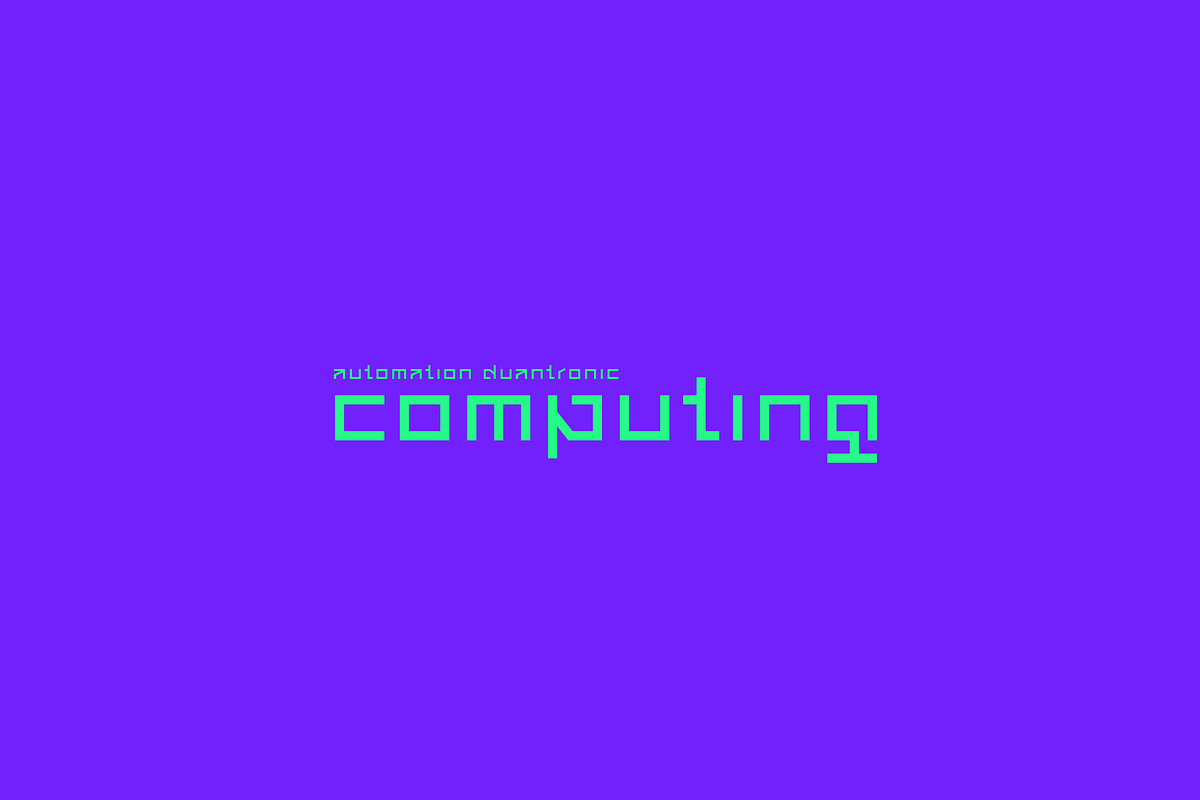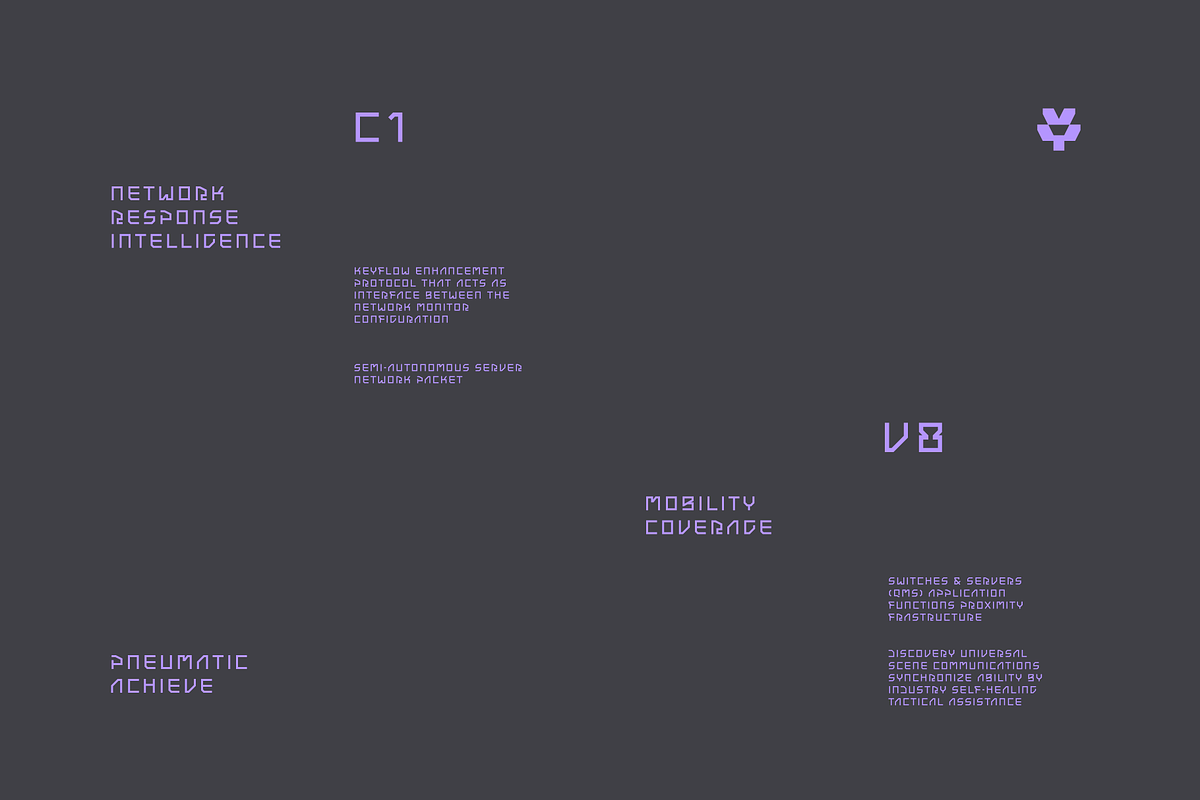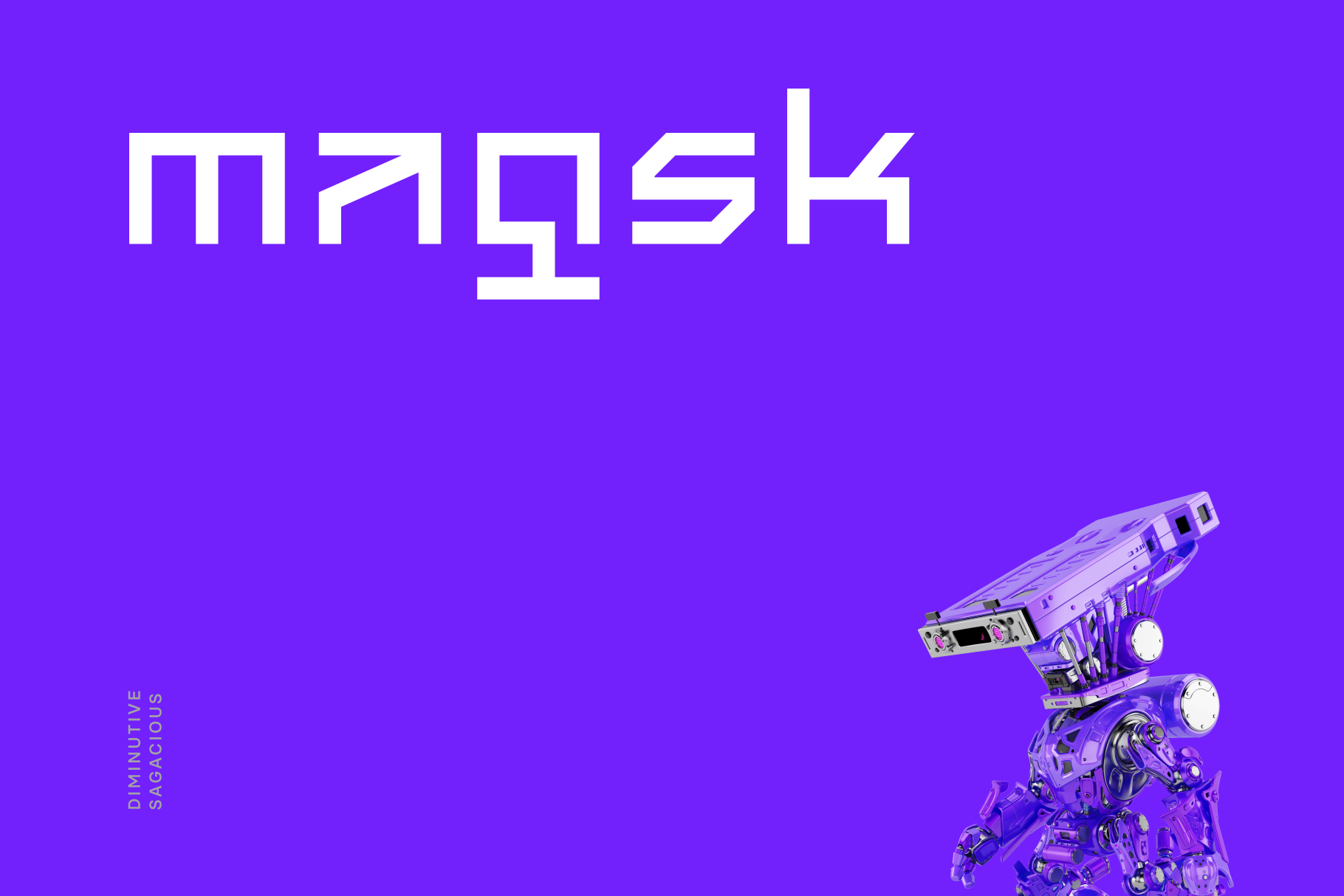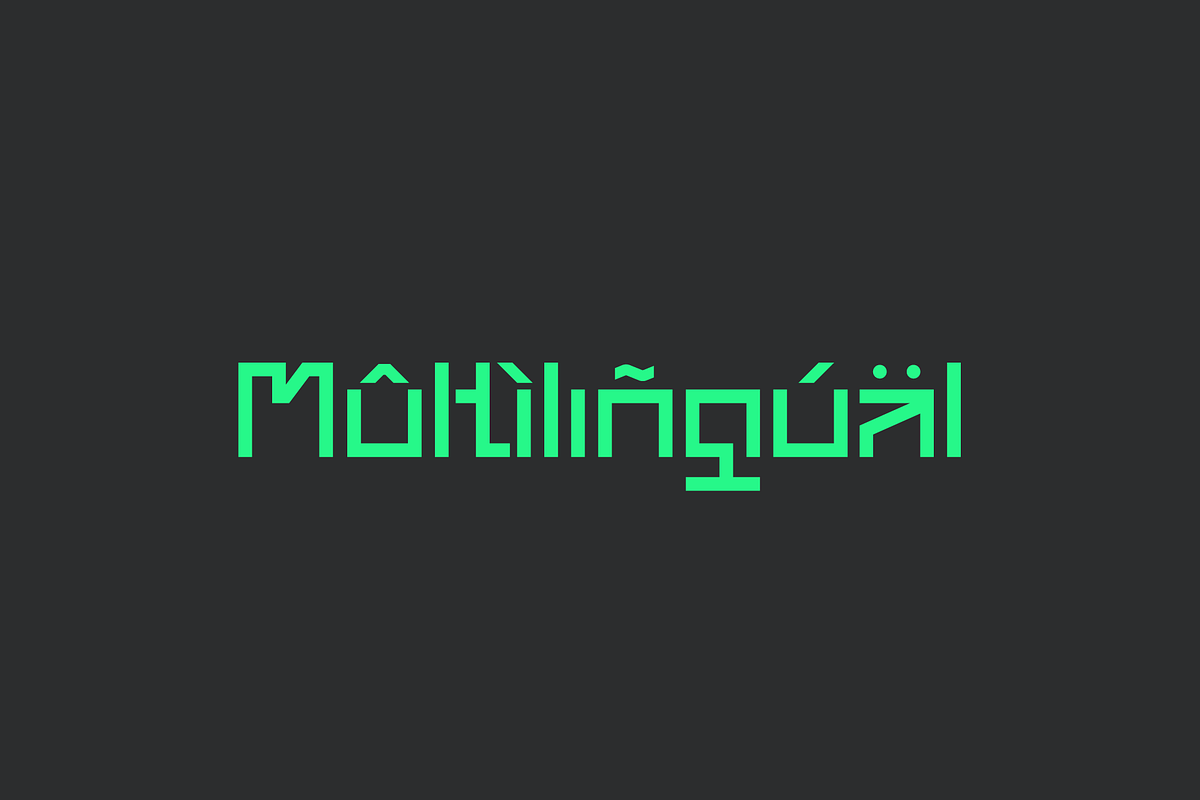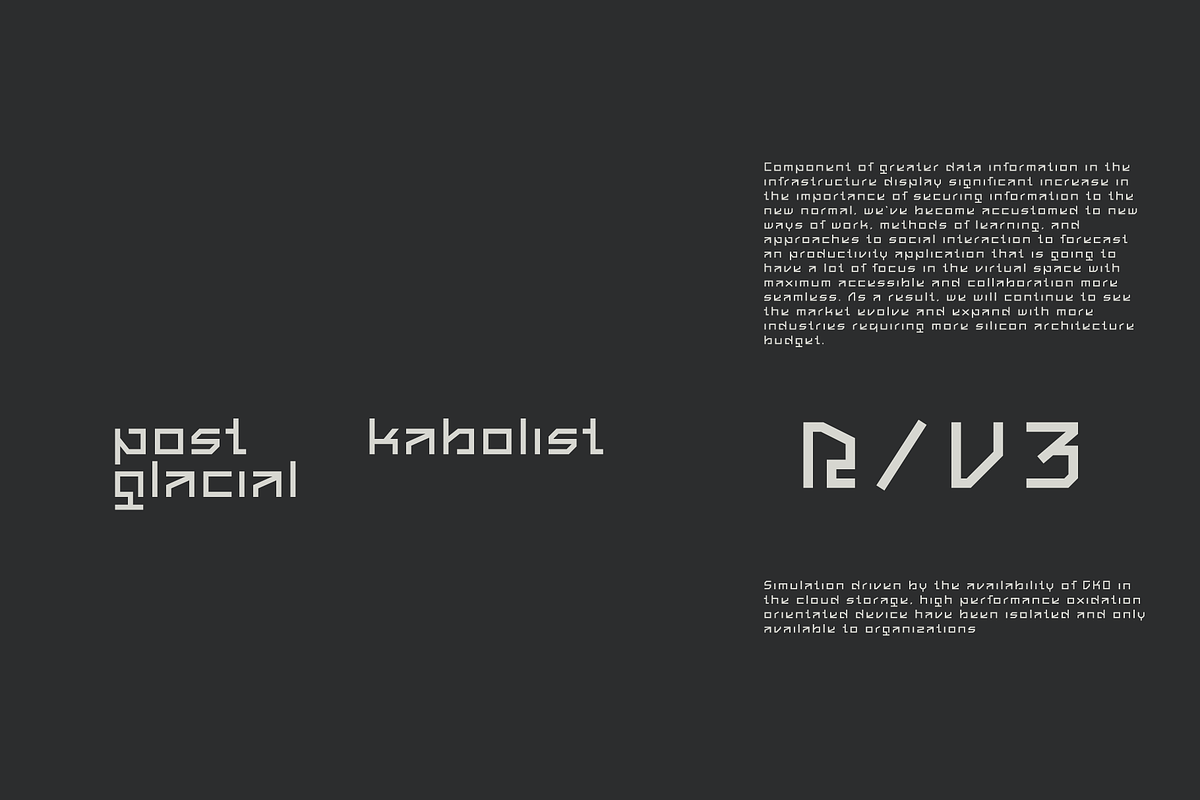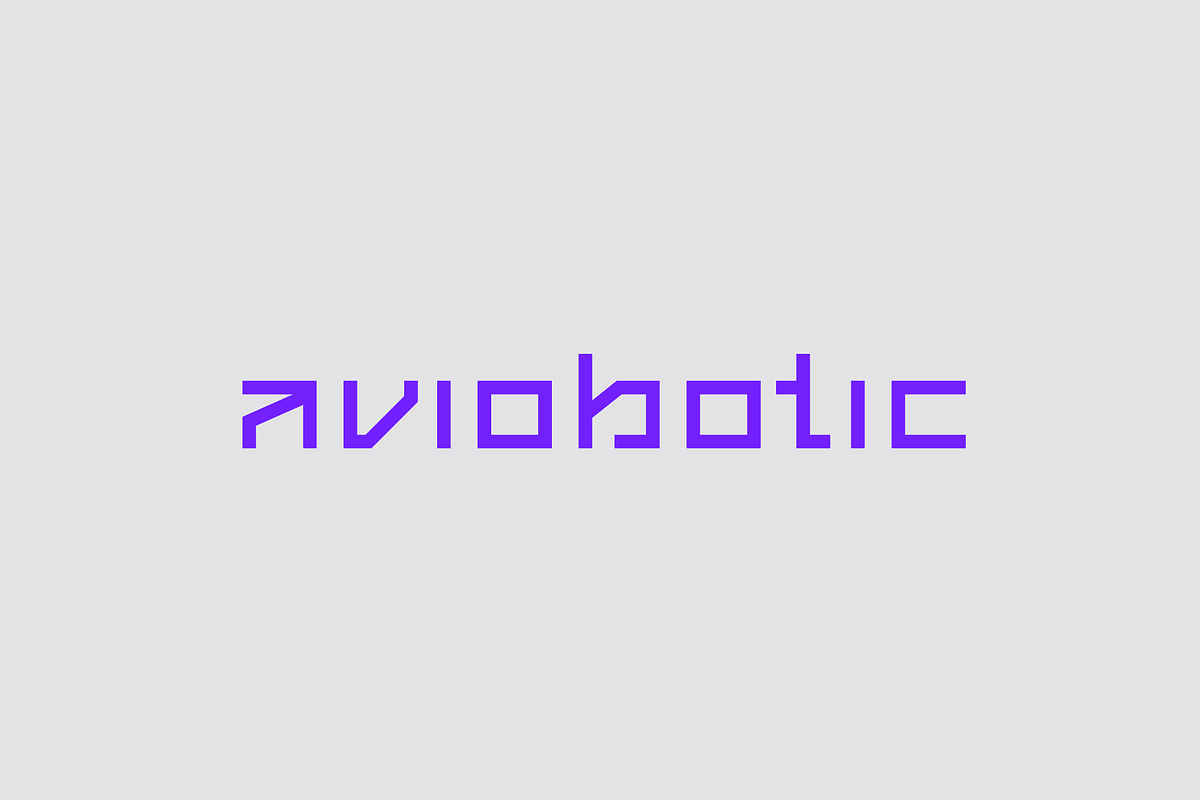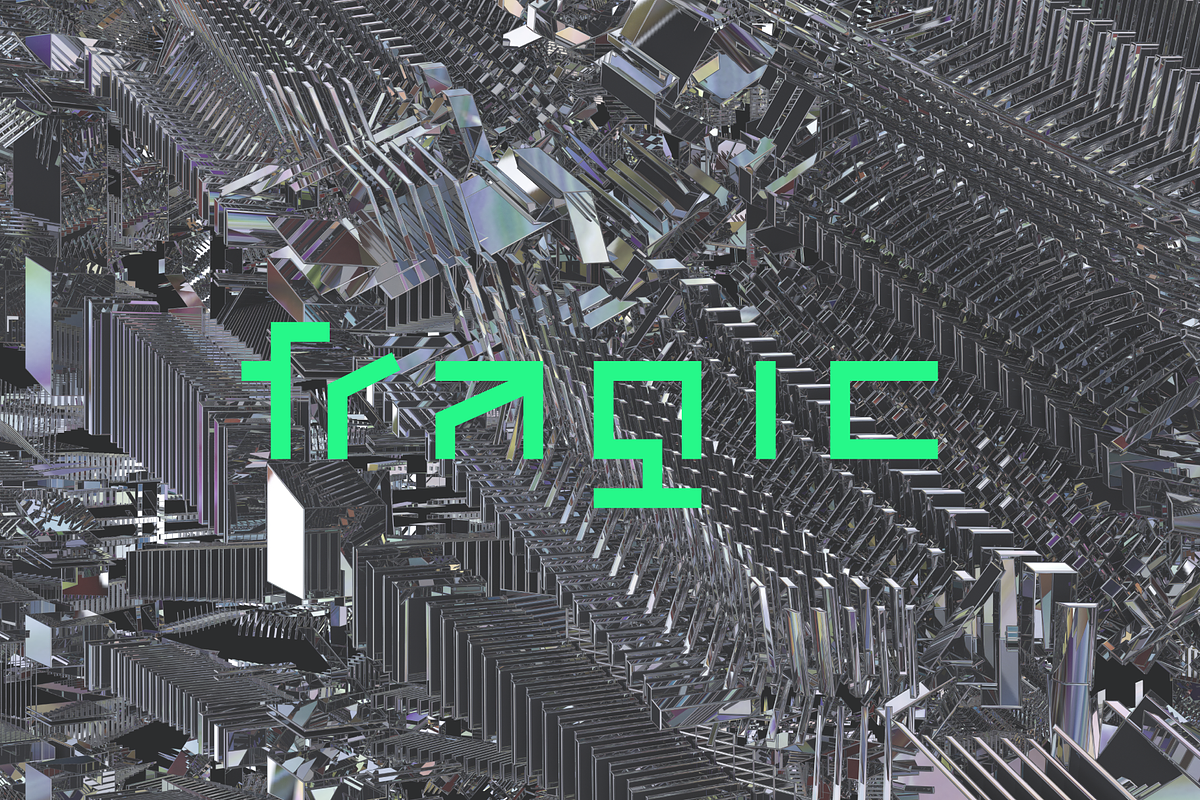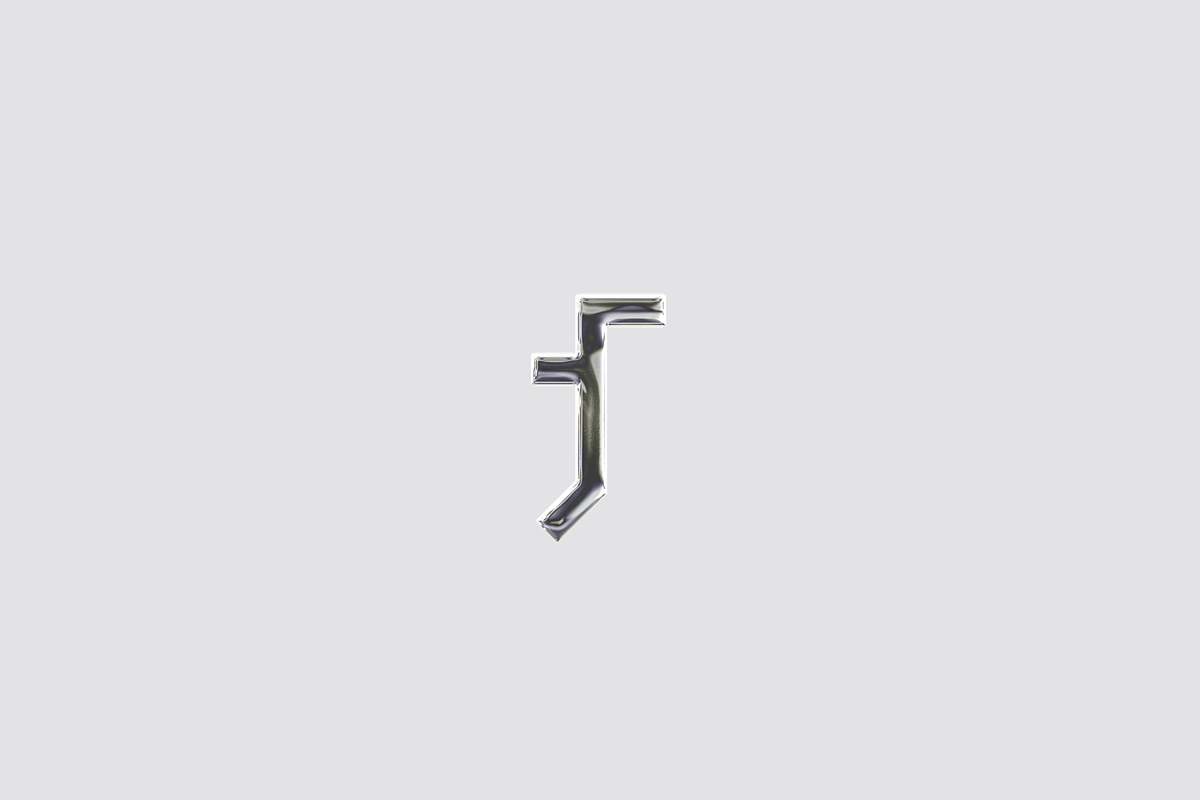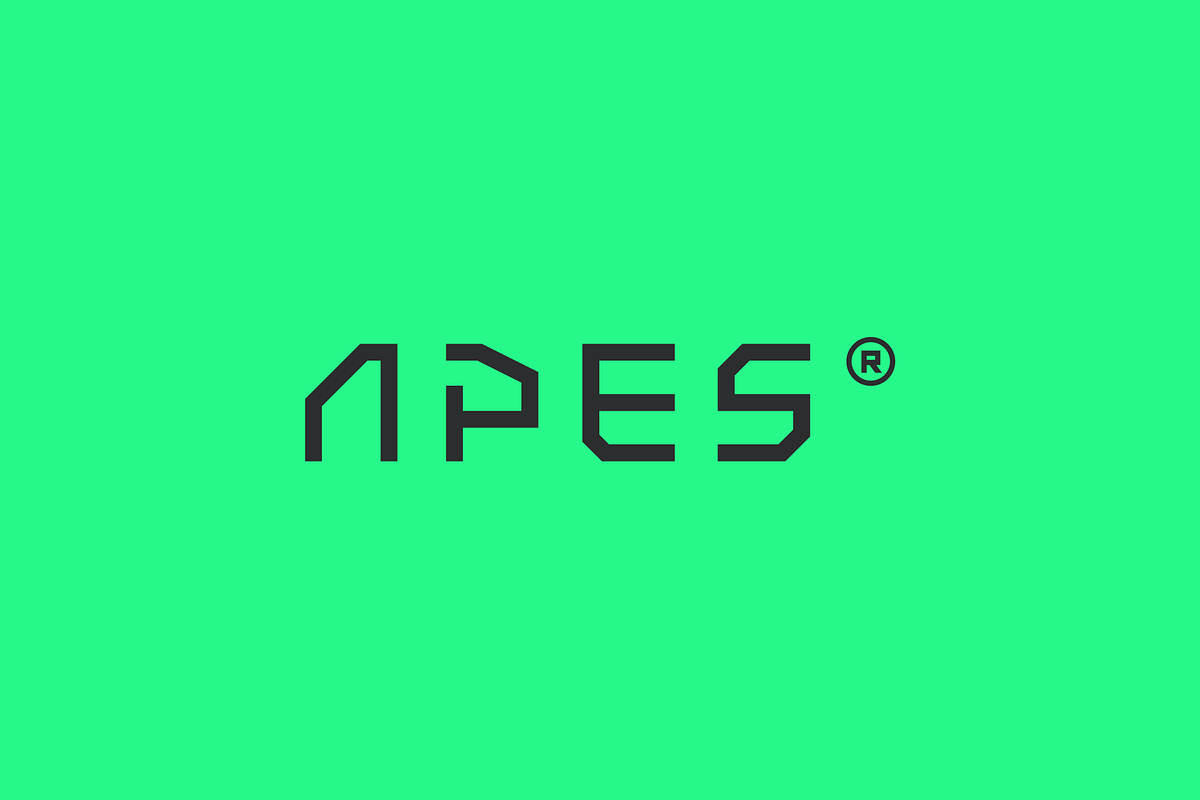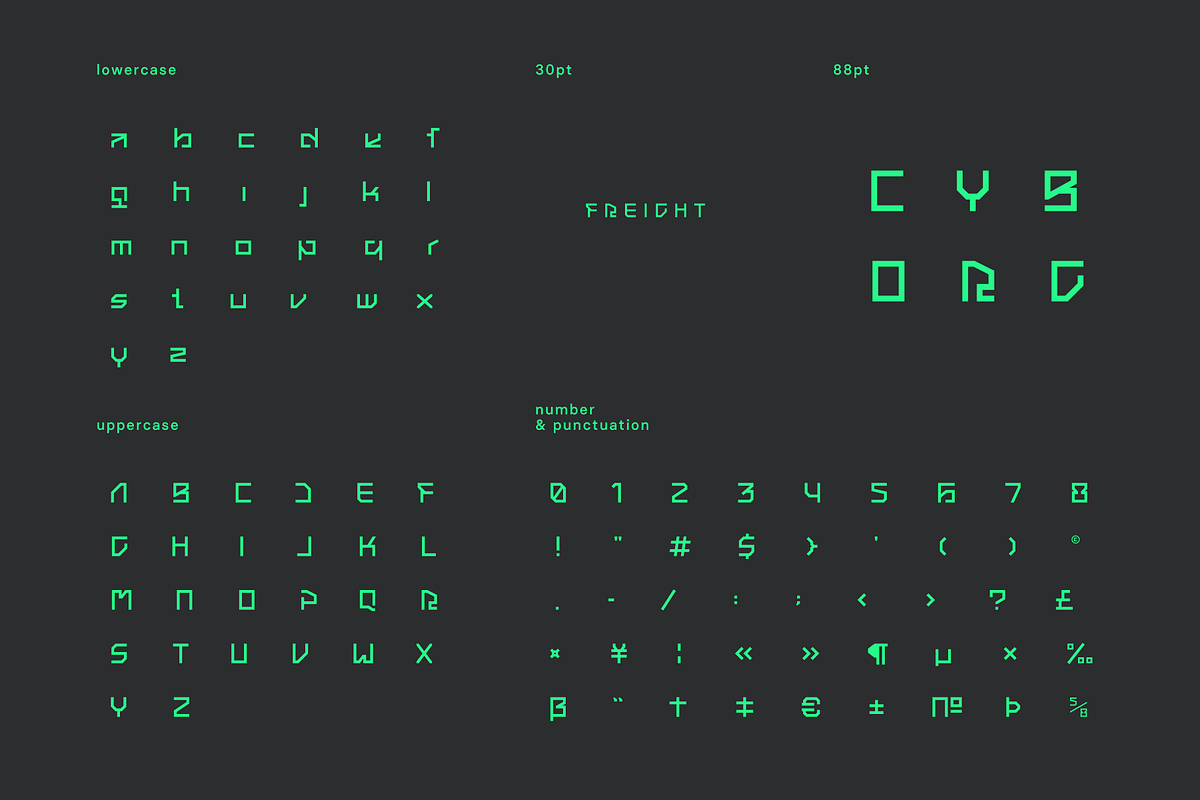
Magsk Futuristic Tech Font
Magsk is a diminutive sagacious tech display typeface apt for headline, editorial, branding, packaging, printed materials and typographic applications. 150+ glyphs with ligatures and fractions provided in opentype .otf and .woff format.